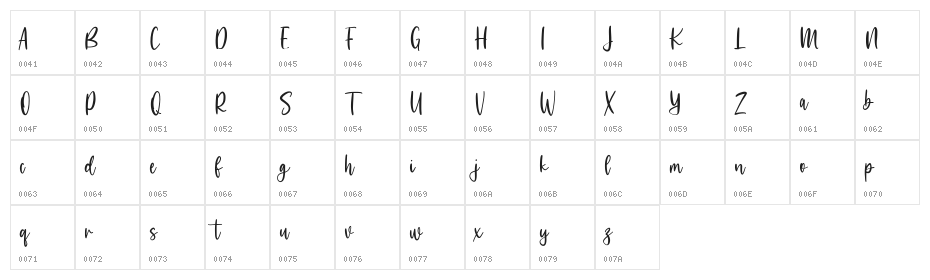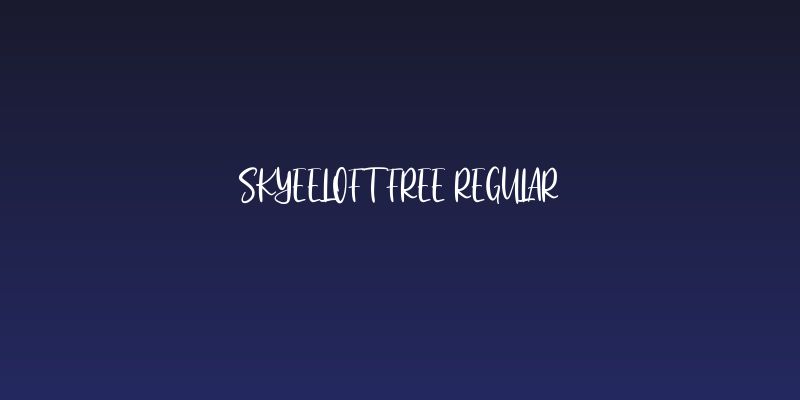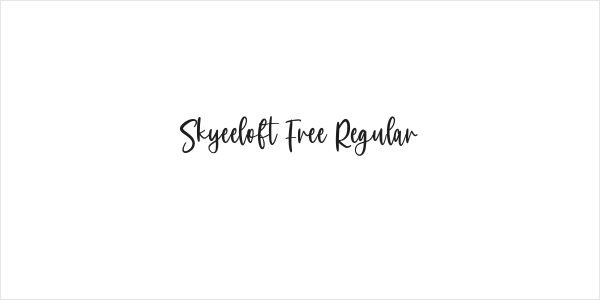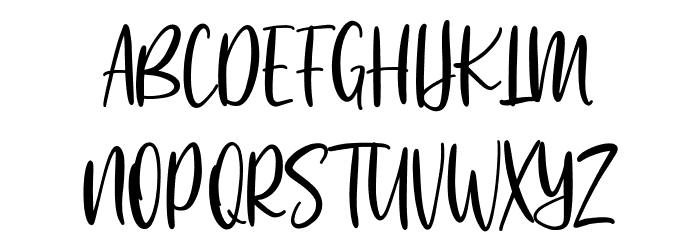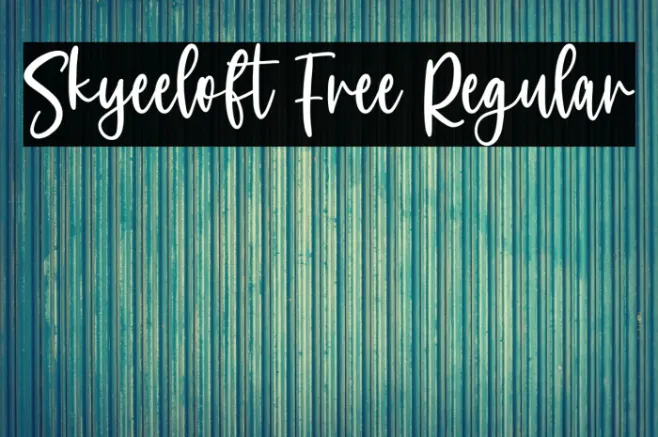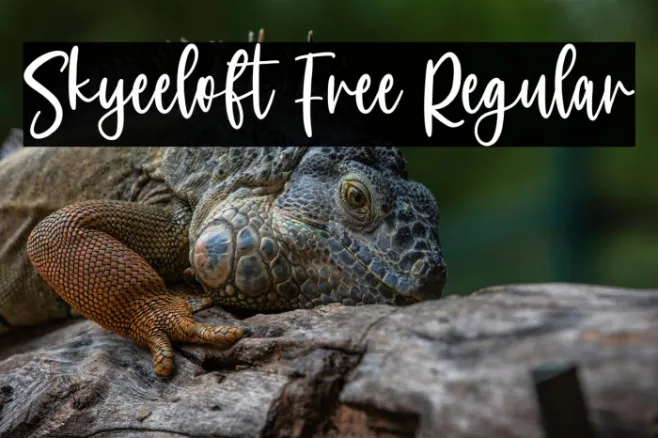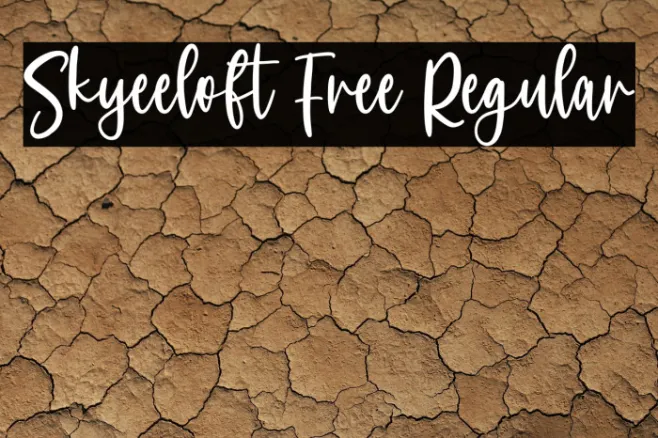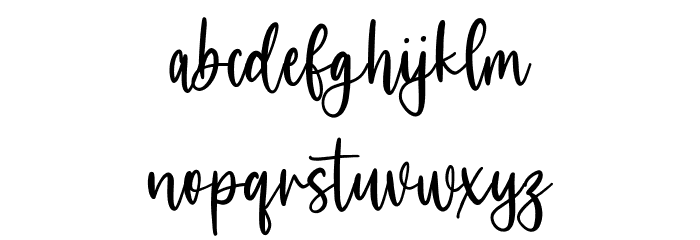
Skyeeloft Free Regular Font
Skyeeloft Free Regular Description
This font features a lively and flowing script style, characterized by its smooth, connected strokes and elegant curves. The letters have a handwritten appearance, with a playful yet sophisticated flair. The uppercase letters are bold and prominent, while the lowercase letters maintain a consistent flow, enhancing readability. The font's overall design is both casual and stylish, making it suitable for a variety of creative applications. Its unique charm lies in the subtle variations in stroke width, adding a dynamic and personal touch to any text.
| Use Case | Logos, Invitations, Social Media |
| Proposed Projects | Ideal for wedding invitations, greeting cards, branding projects, and social media graphics. |